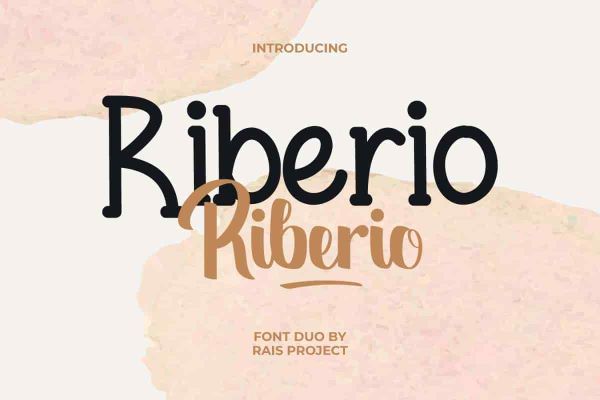
Riberio Font
Riberio Font is a Cartoon Font by RaisProject — a unique handwritten display typeface with a cheerful, minimal vibe that creates a realistic yet endearingly cute mood across any design it touches. Its playful character adapts naturally to a wide variety of creative contexts without ever feeling forced or out of place, even in the absence of numbers and punctuation marks.